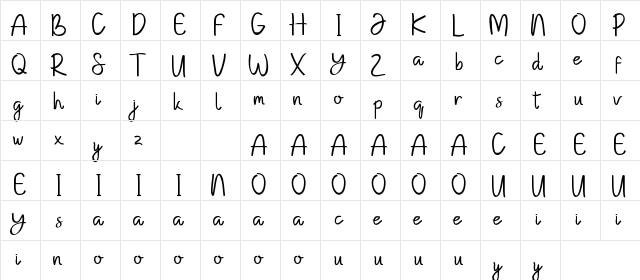
Kempton Demo Handwritting Regular
| Foundry | Edric Studio |
| Designer | Renata Insan C |
Design Context for Kempton Demo Handwritting Typeface
Kempton Demo Handwritting flows with the natural rhythm of handwritten lettering, making it ideal for designs that call for warmth and personal expression.